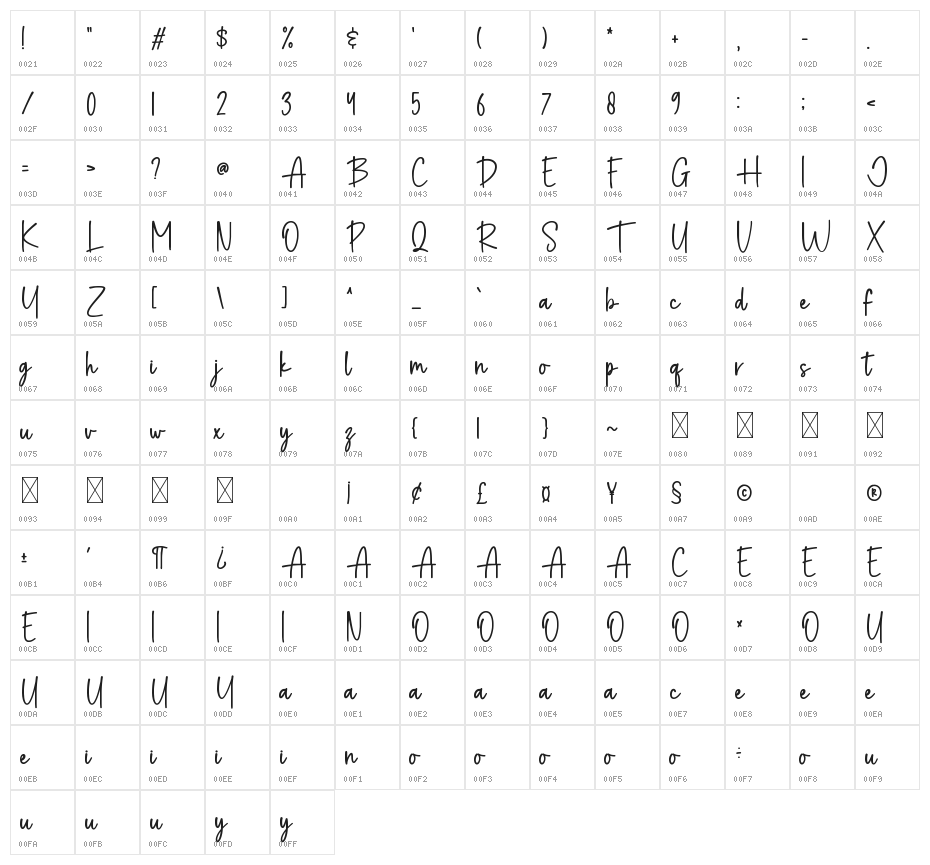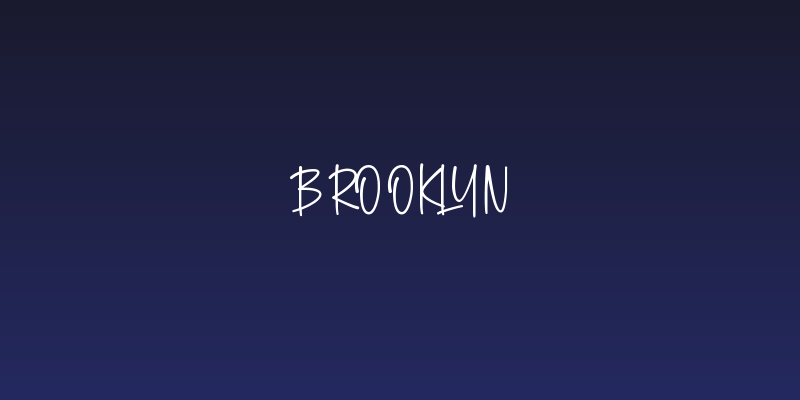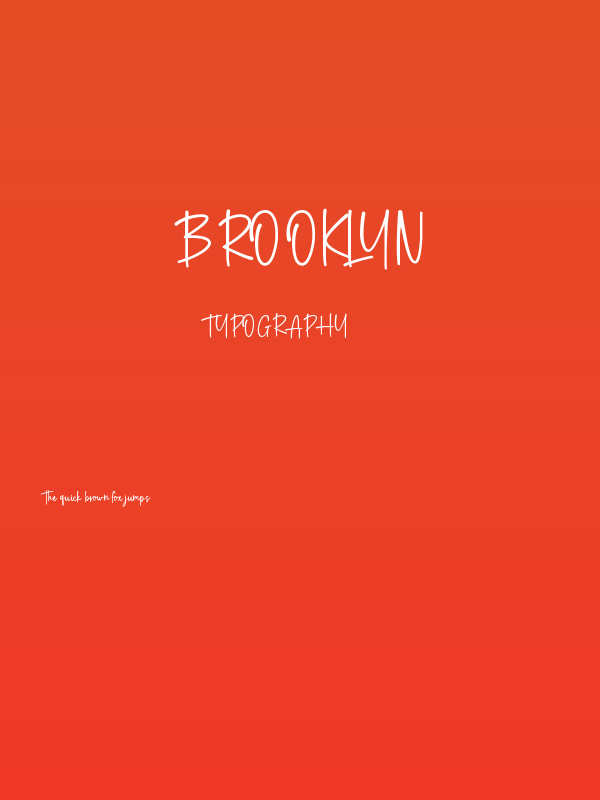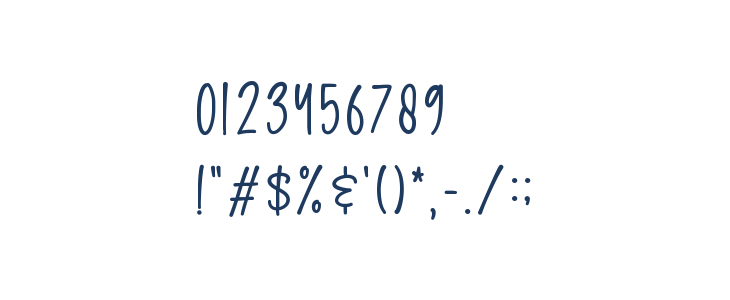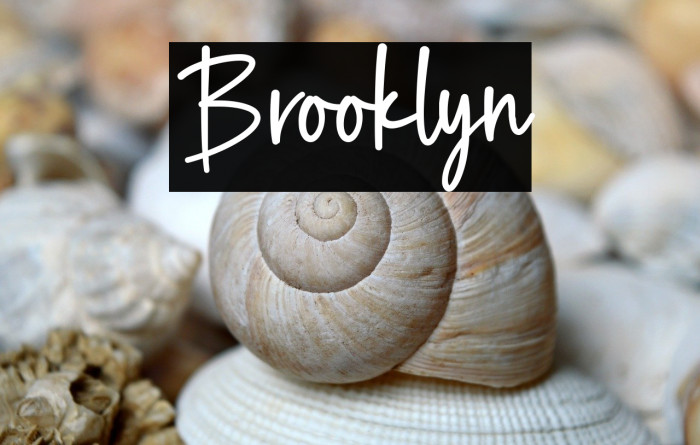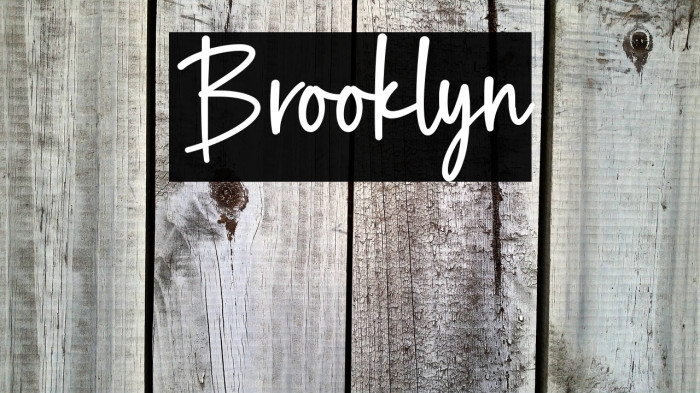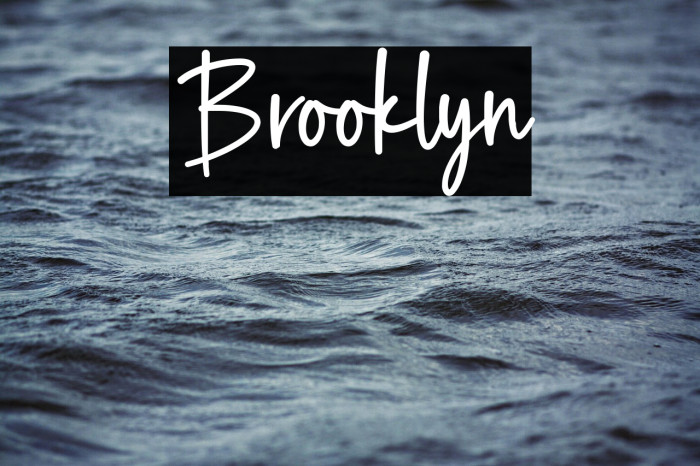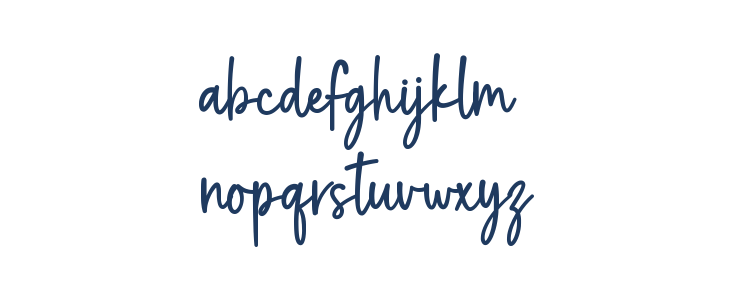
Brooklyn Font
Brooklyn Description
This font features a playful and informal style, combining both uppercase and lowercase letters with a handwritten aesthetic. The uppercase letters are tall and narrow, with a slight slant that adds a dynamic feel. The lowercase letters are more fluid and connected, resembling cursive handwriting. The numbers maintain the same playful style, ensuring consistency across all characters. Special characters are included, matching the overall aesthetic. This font's unique style makes it suitable for creative projects that require a personal touch.
| Proposed Projects | Ideal for greeting cards, invitations, personal branding, and creative social media graphics. |